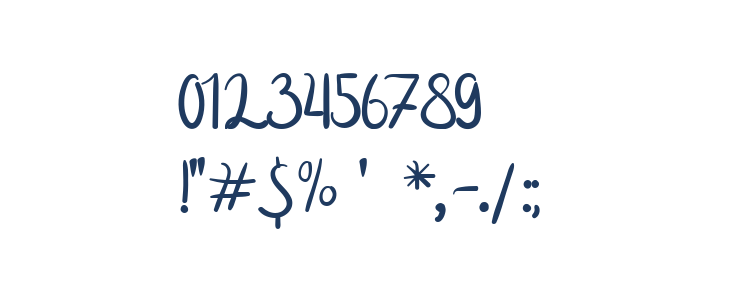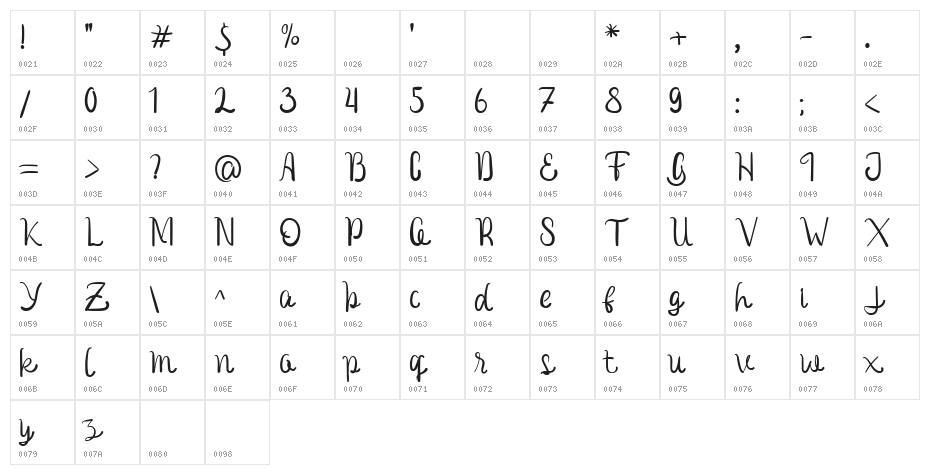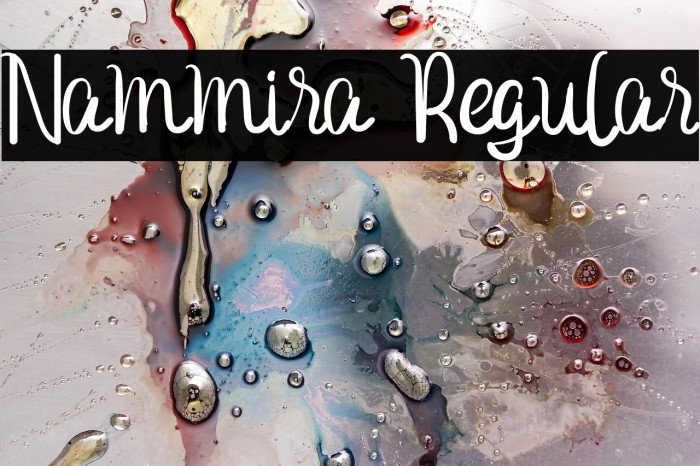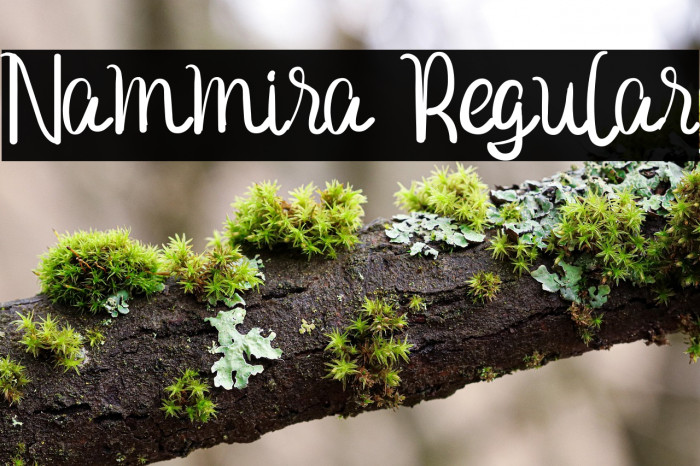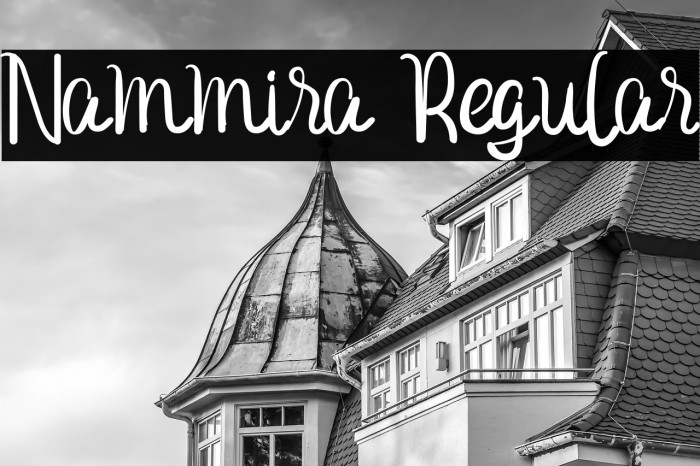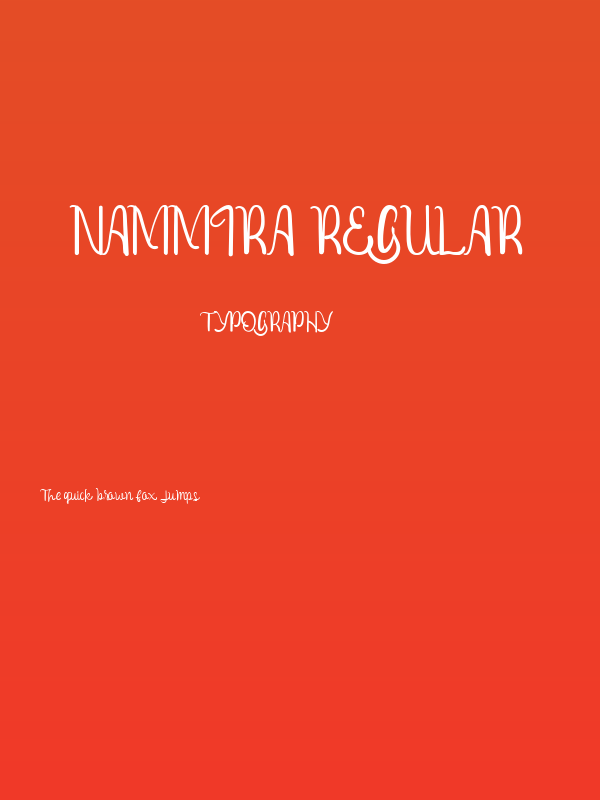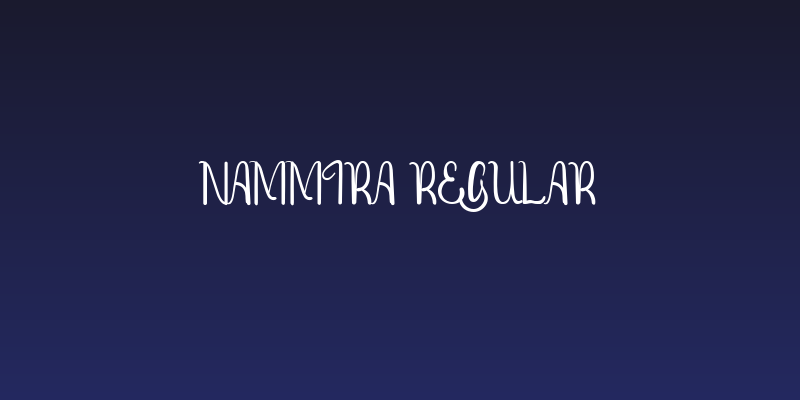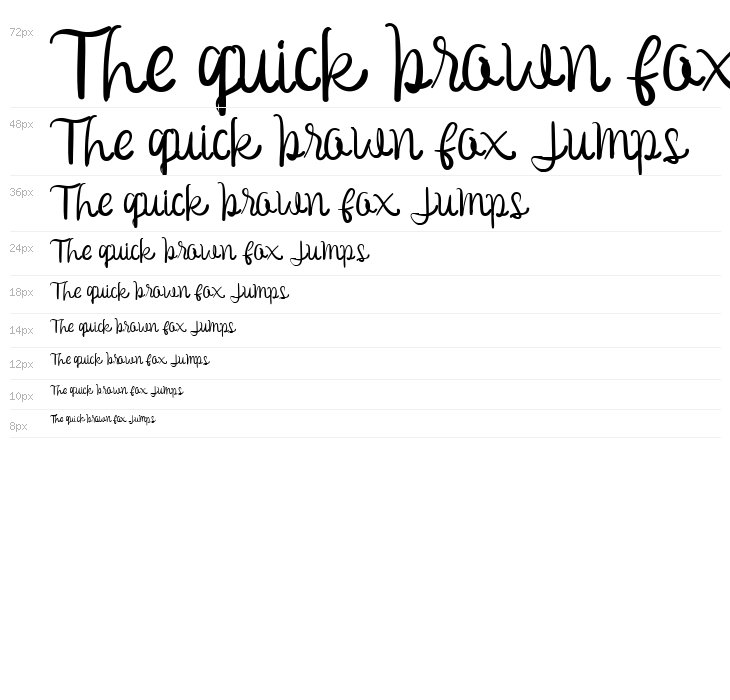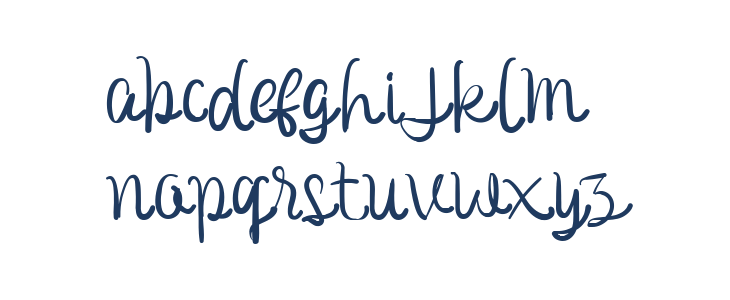
Nammira Regular Font
Nammira Regular Description
This font features a playful and whimsical script style with a handwritten appearance. The characters are fluid and connected, giving it a casual and friendly look. The uppercase letters are bold and slightly exaggerated, while the lowercase letters maintain a consistent flow with rounded edges. The numerals and special characters are designed to match the overall style, ensuring a cohesive appearance. This font is ideal for projects that require a personal touch, such as invitations, greeting cards, or branding for creative businesses.
Use CaseLogos, Headlines, Invitations
Proposed ProjectsIdeal for invitations, greeting cards, creative branding, and personal projects.